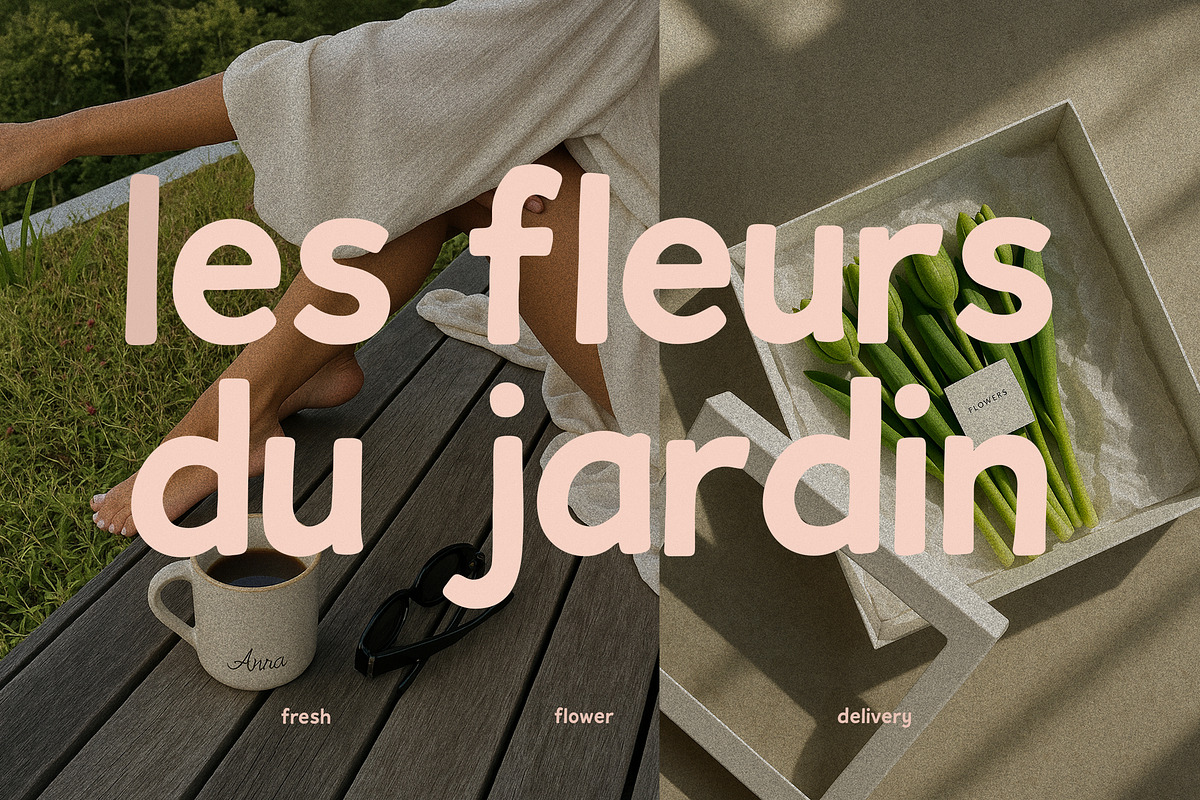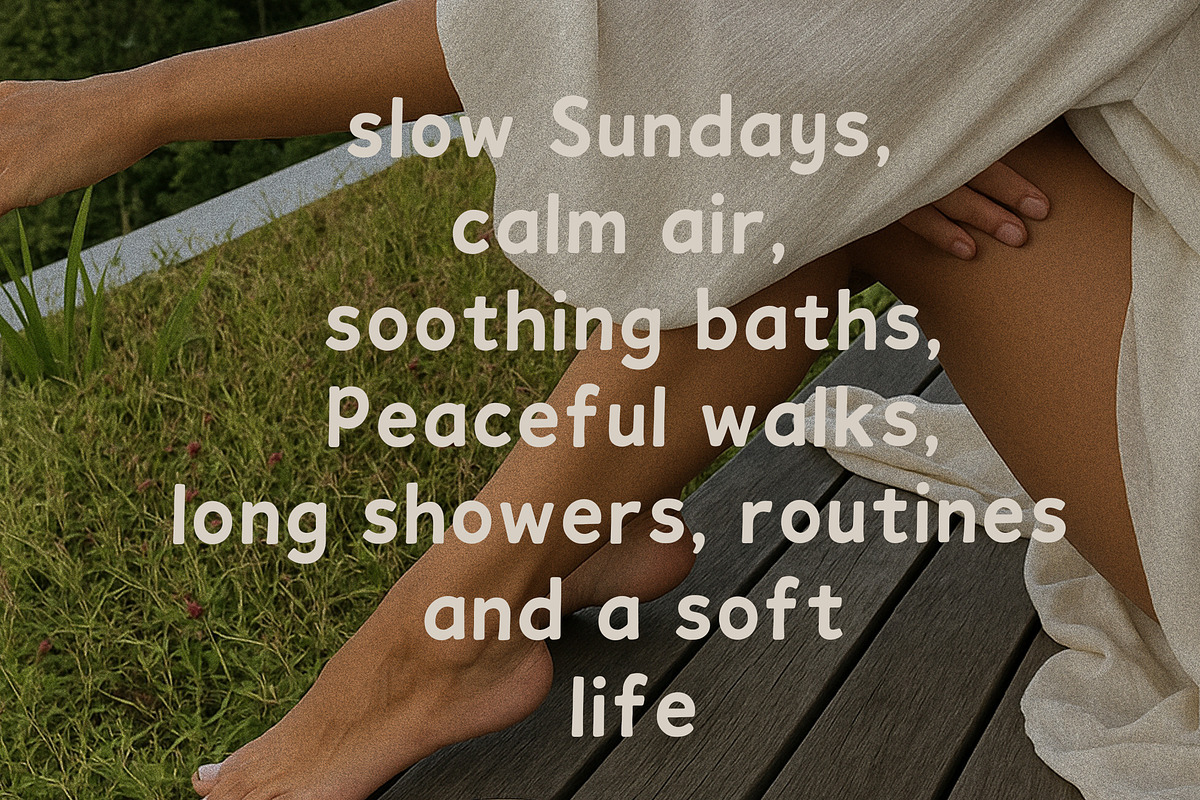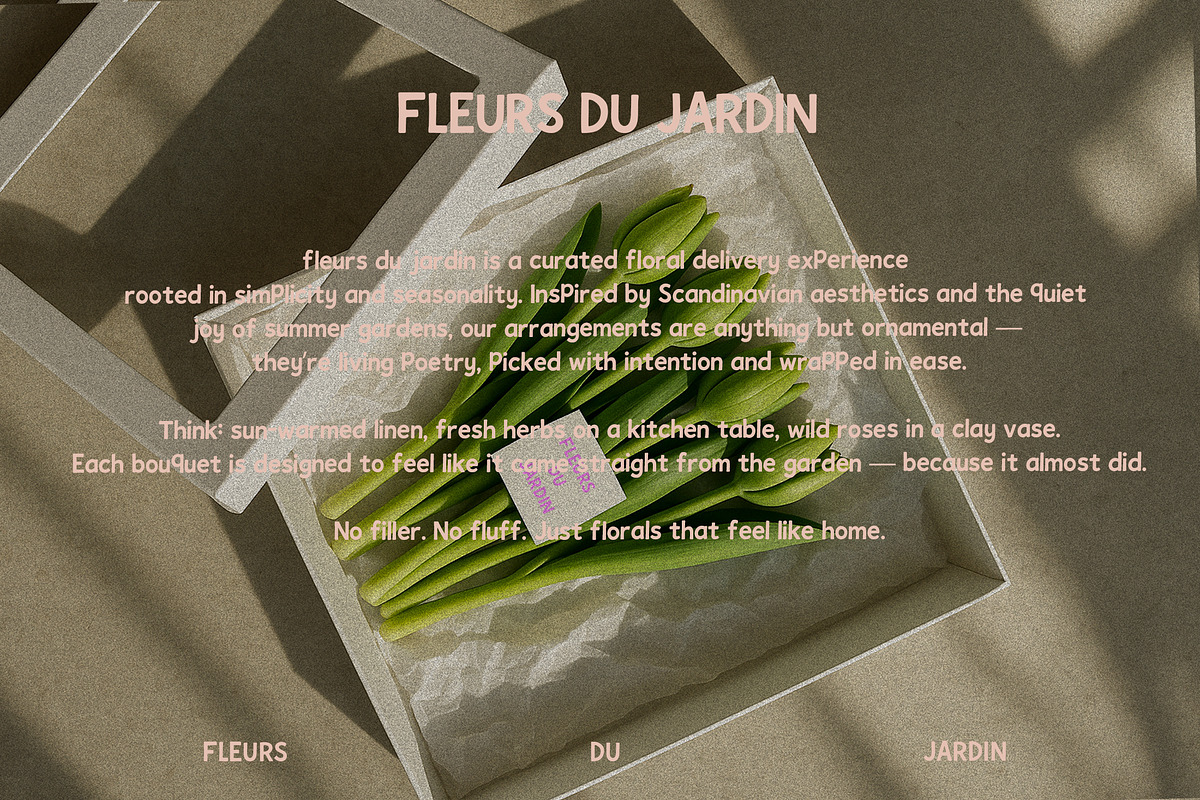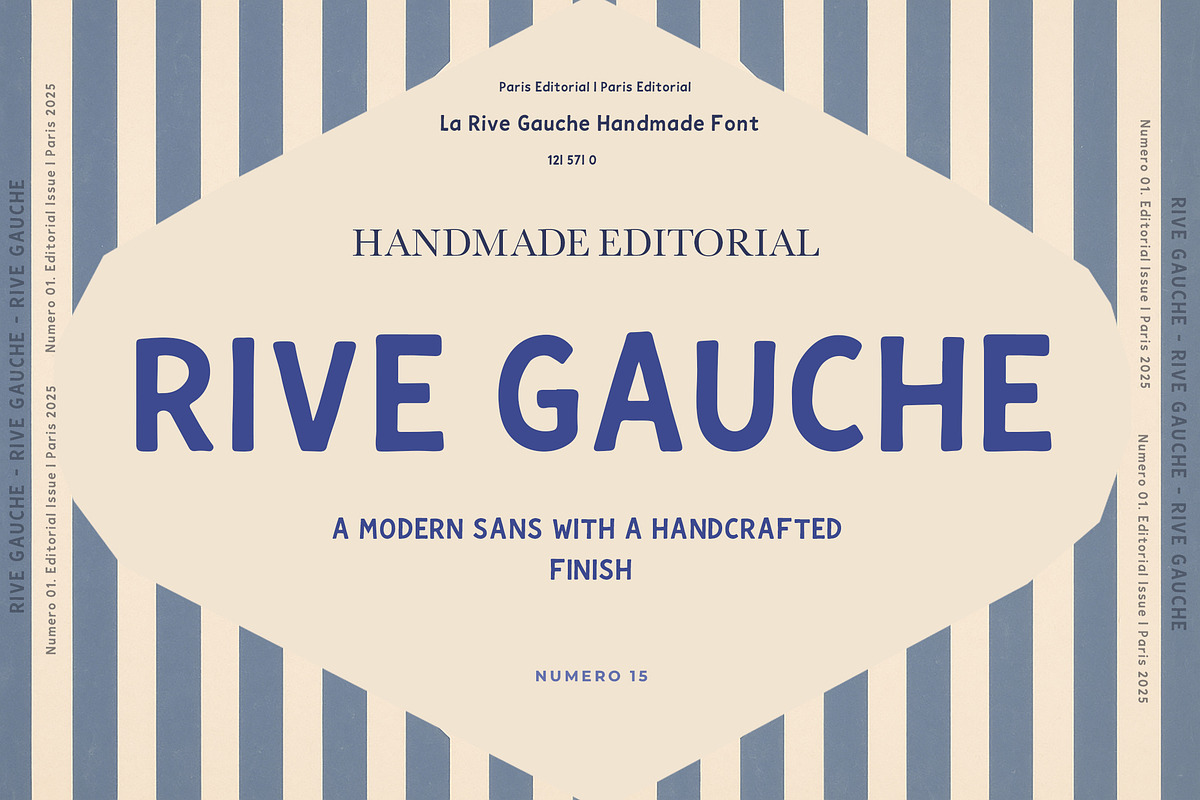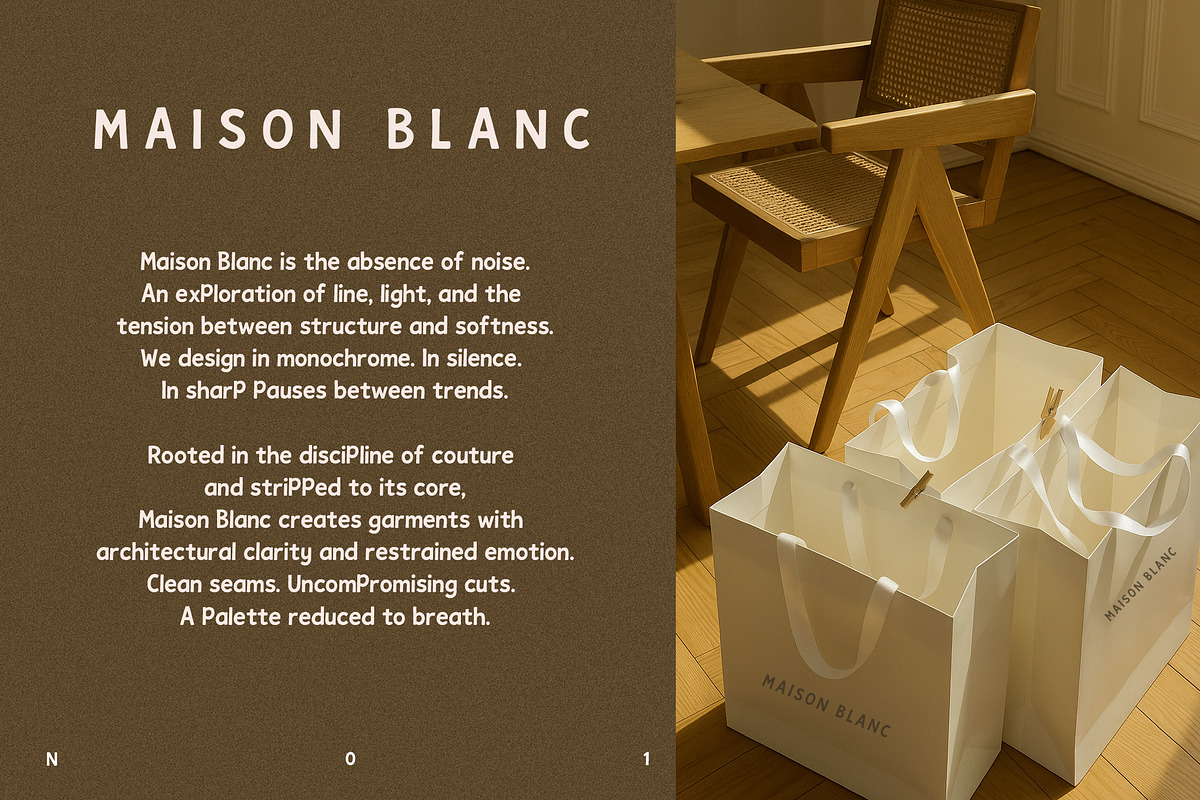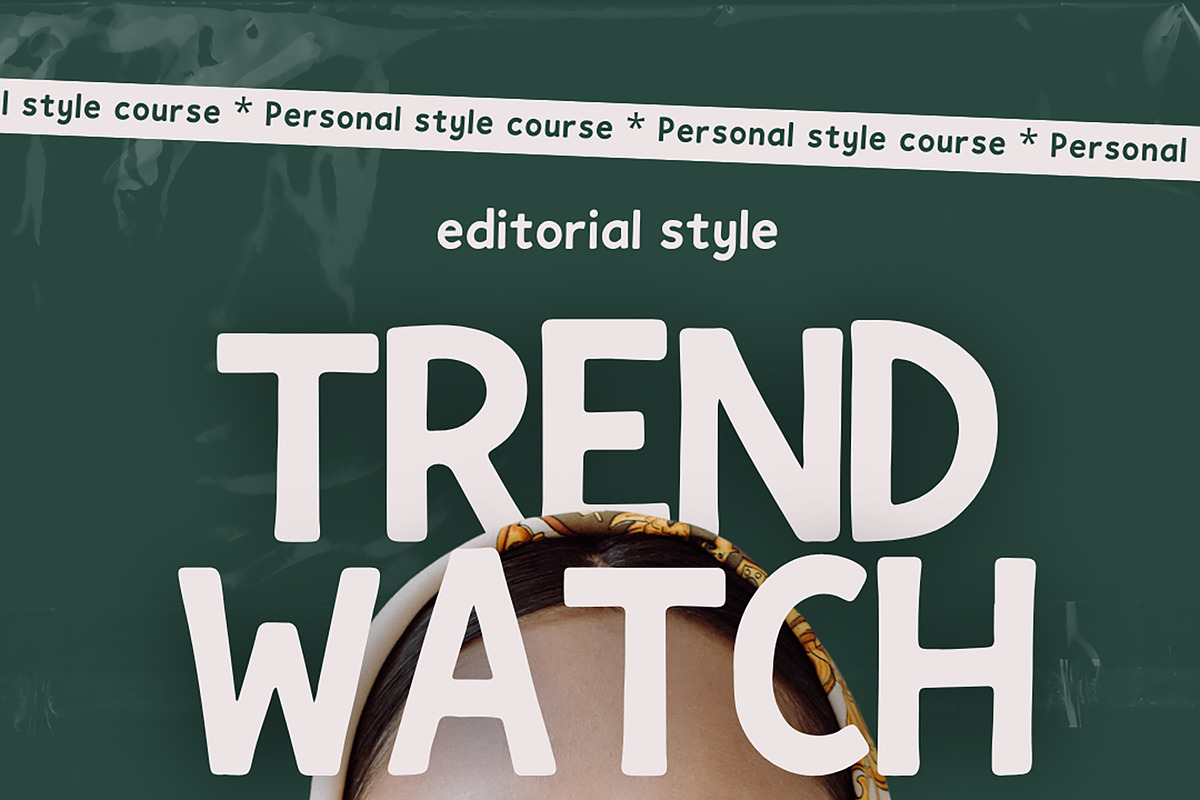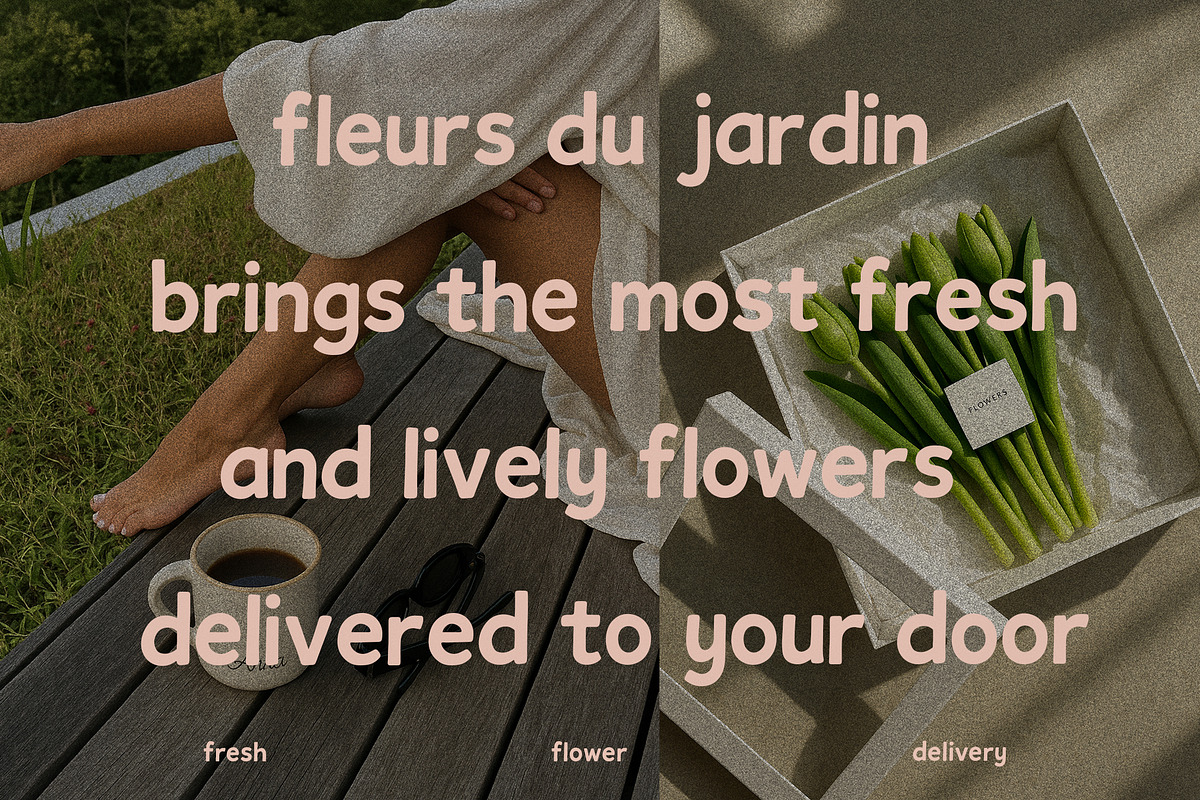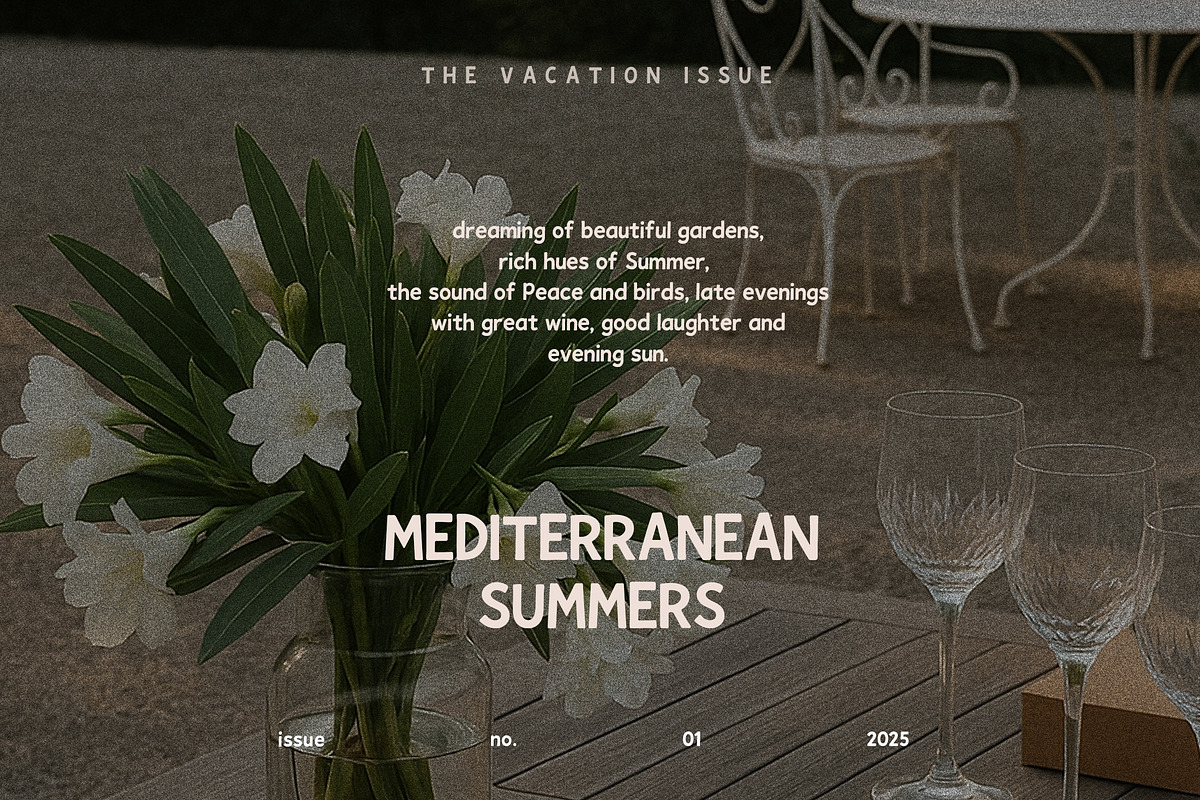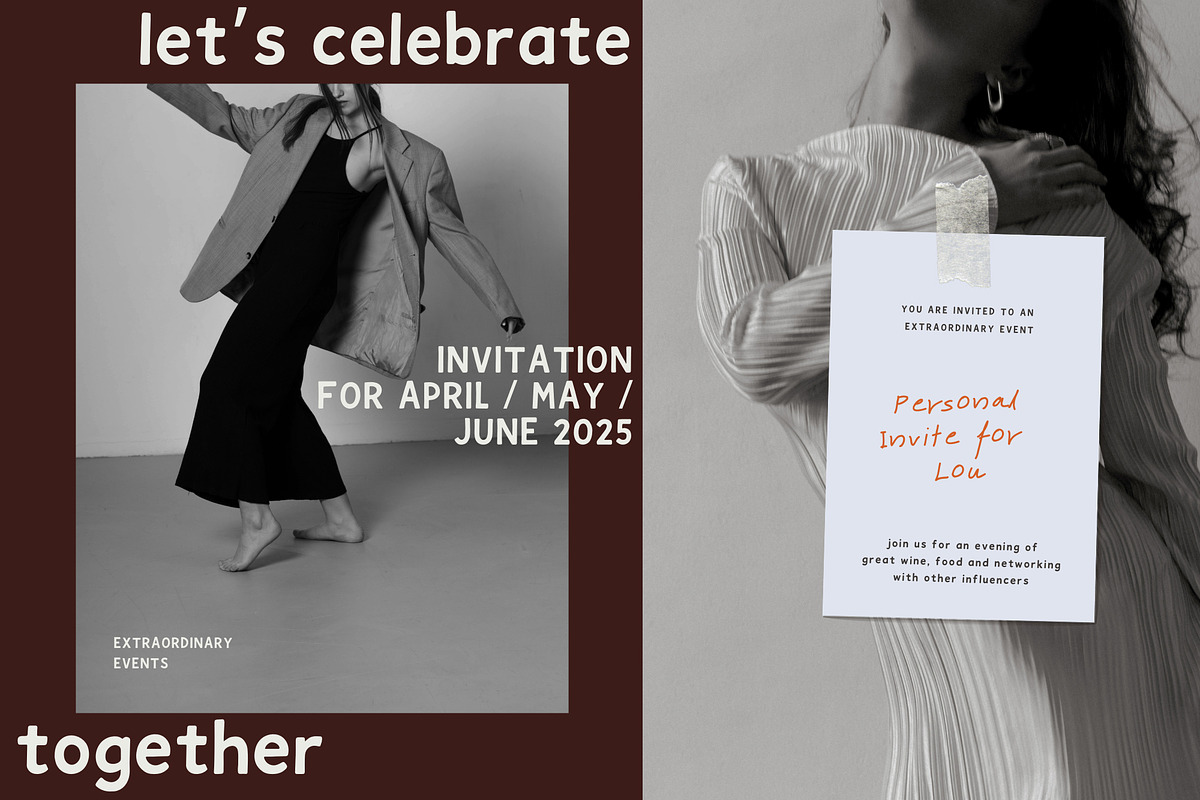
Handwritten Editorial Sans Serif
Rive Gauche is a modern sans serif font with a subtle handwritten finish — blending clean lines with a touch of personality. Designed for editorial layouts, social media, branding, and fashion-forward visuals, it brings structure and softness together in one effortless style. Perfect for minimalist logos, quotes, and elegant branding with that signature look.
Give your next project the clarity of a sans serif with the soul of a signature.